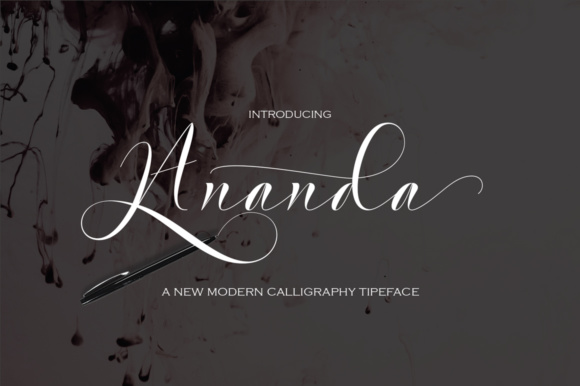
Ananda Font
Embrace the allure of elegance with Ananda Script, a calligraphy font that effortlessly blends timeless beauty with modern sophistication. Crafted by the skilled hands of naldystudio, this captivating font family embodies the essence of script, effortlessly adding a touch of charm and grace to your creative projects.
With its smooth baseline and classic overtones, Ananda Script evokes a sense of nostalgia, harking back to an era of handwritten letters and heartfelt expressions. Each meticulously crafted letterform exudes sophistication, inviting you to capture the essence of timeless elegance in your designs.
Whether you're crafting breathtaking wedding invitations, designing eye-catching logos, creating stunning headlines, or personalizing your signatures with a touch of flair, Ananda Script stands as your trusted companion. Its versatility extends beyond traditional applications, making it an ideal choice for a diverse range of projects, from social media posts to marketing materials and branding endeavors.
Indulge in the limitless creative possibilities offered by Ananda Script. Let your imagination soar as you explore its endless applications, transforming your digital designs into captivating expressions of art. Join the ranks of discerning creatives who have discovered the transformative power of Ananda Script, a font family that elevates your creations to new heights of elegance and sophistication.